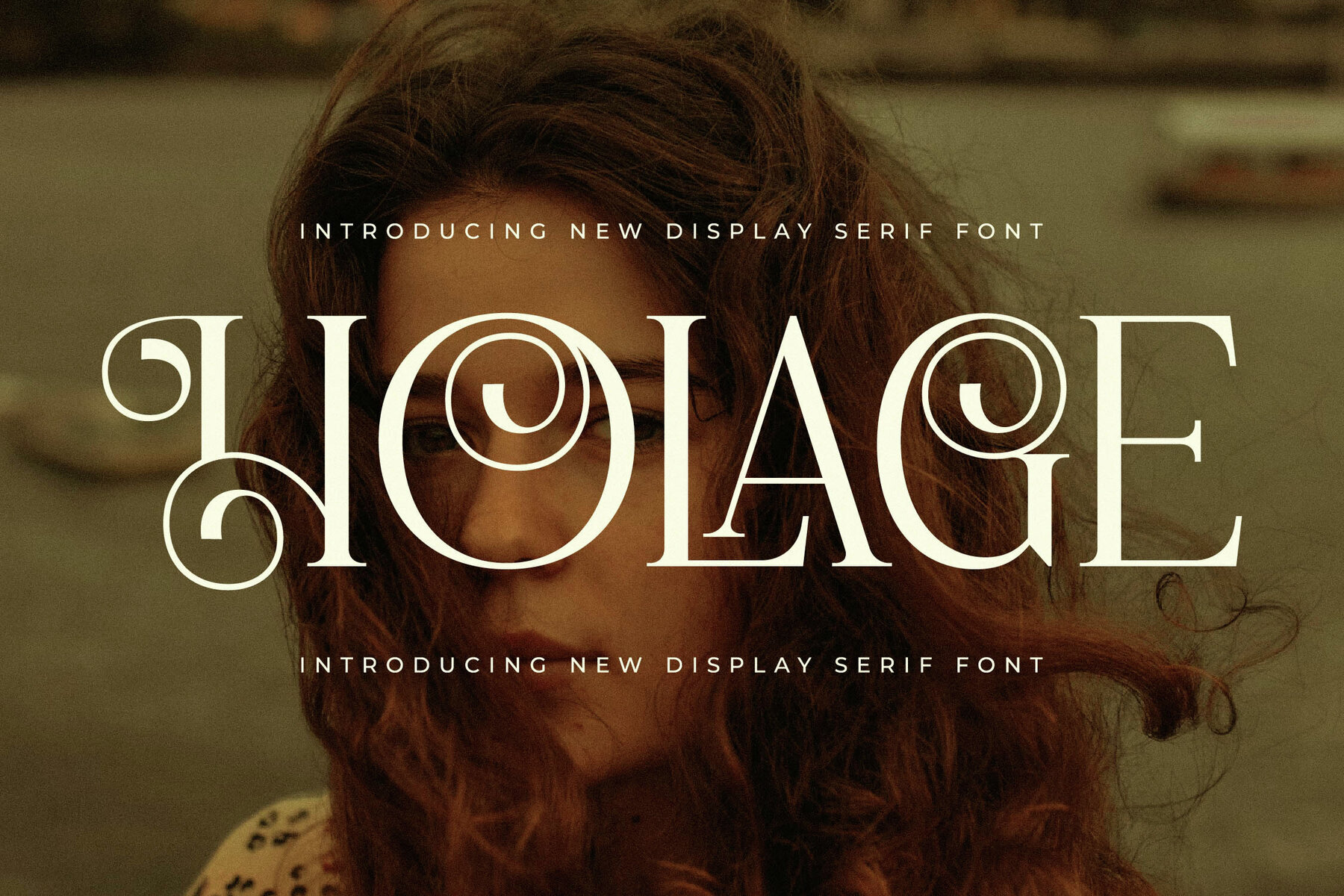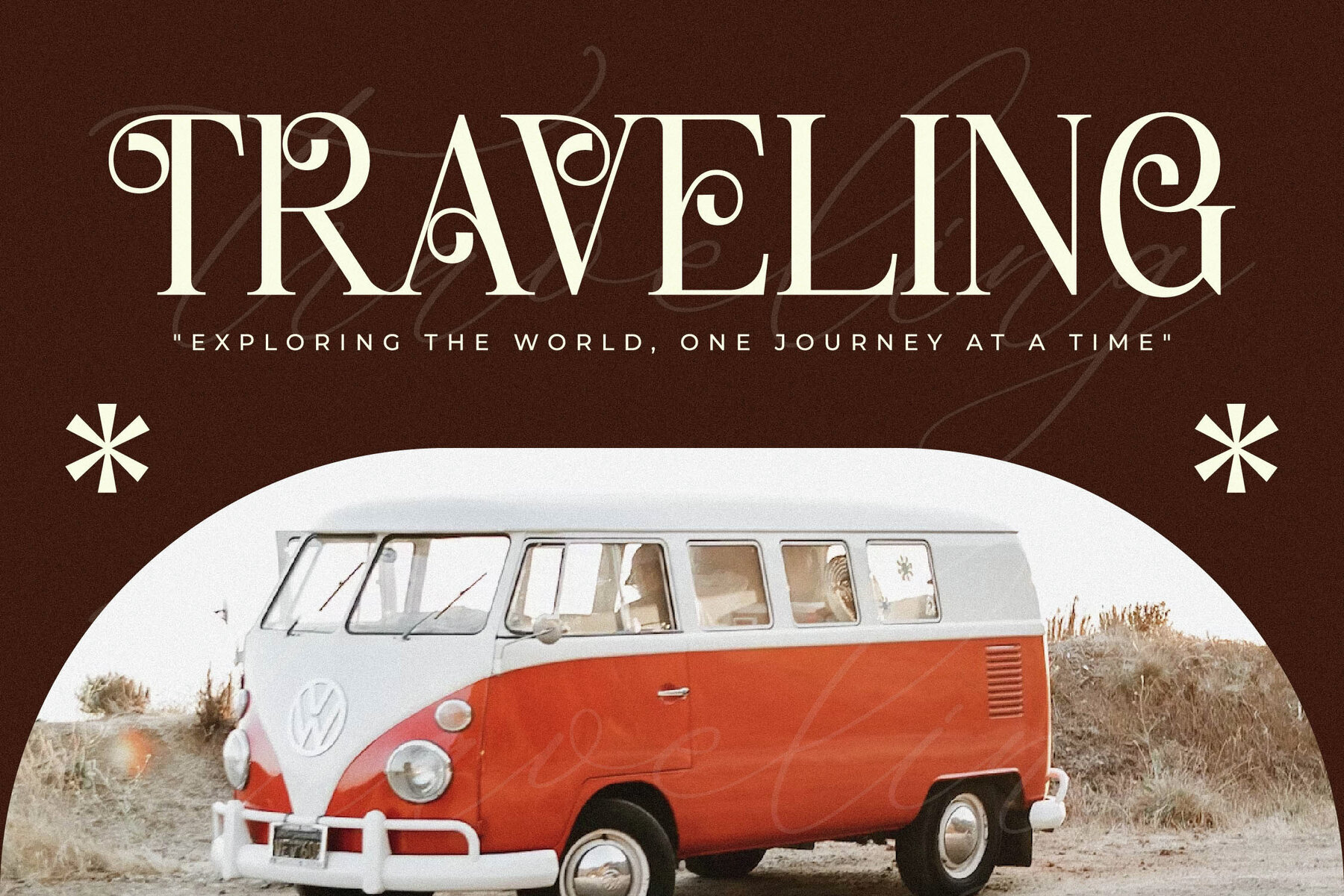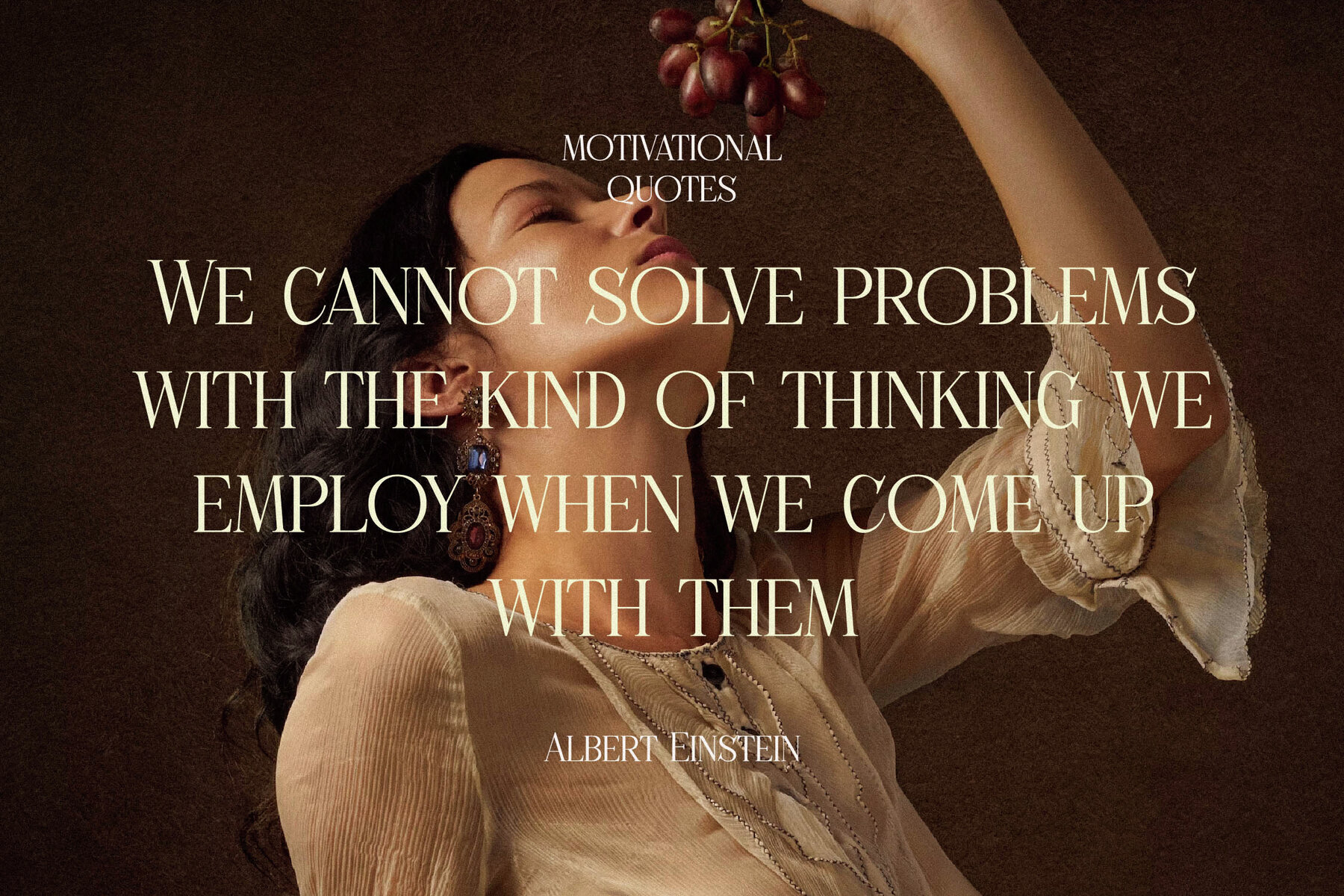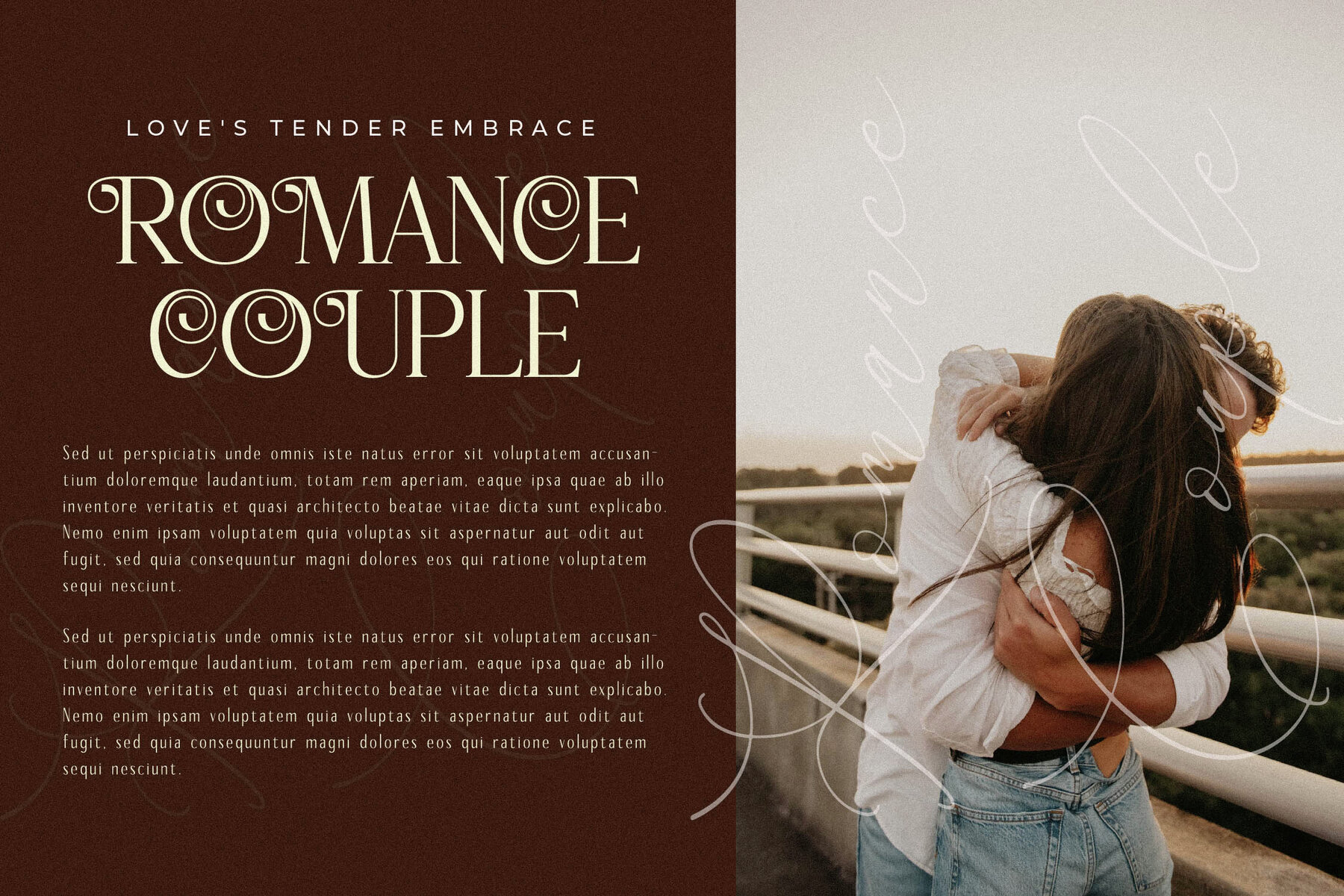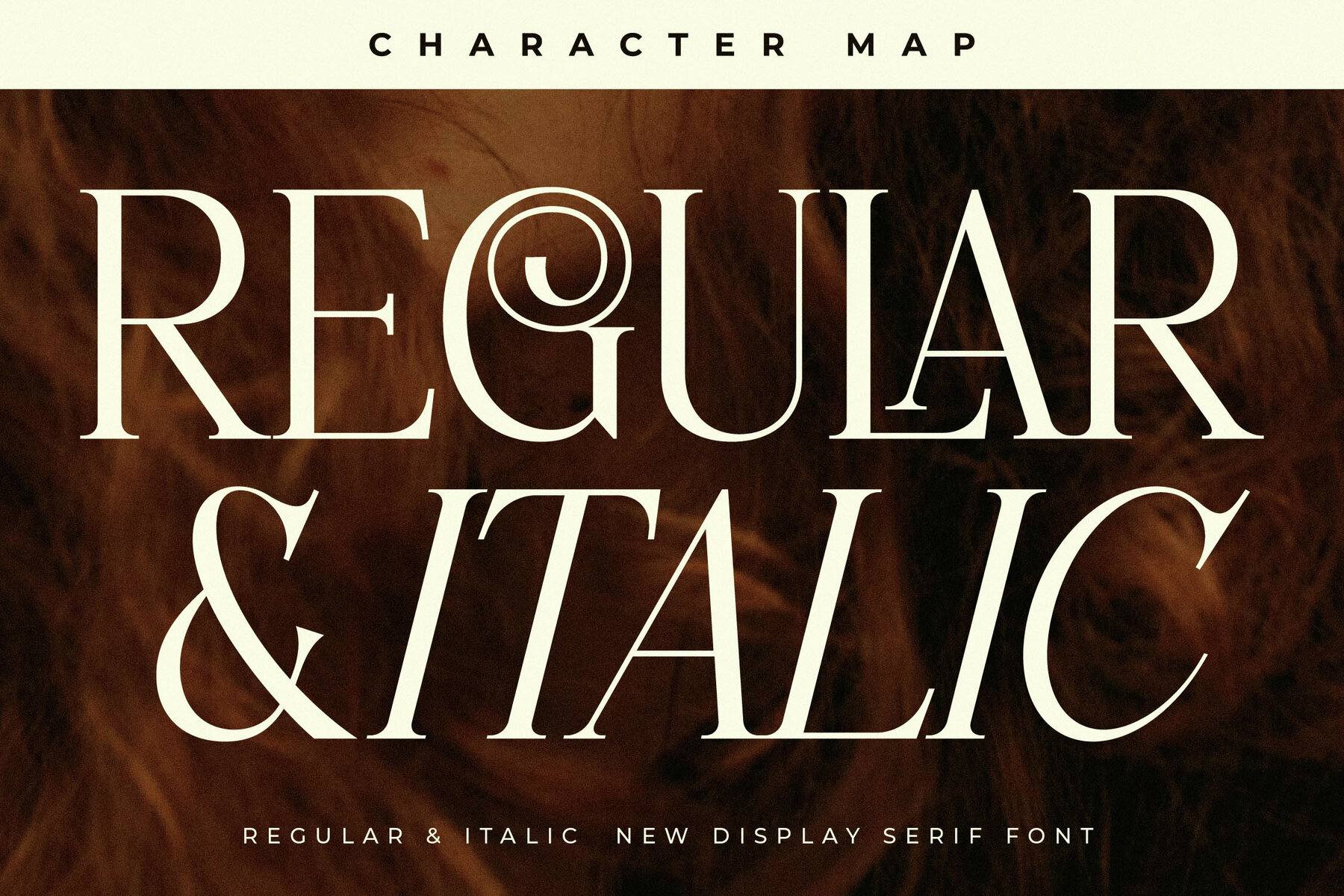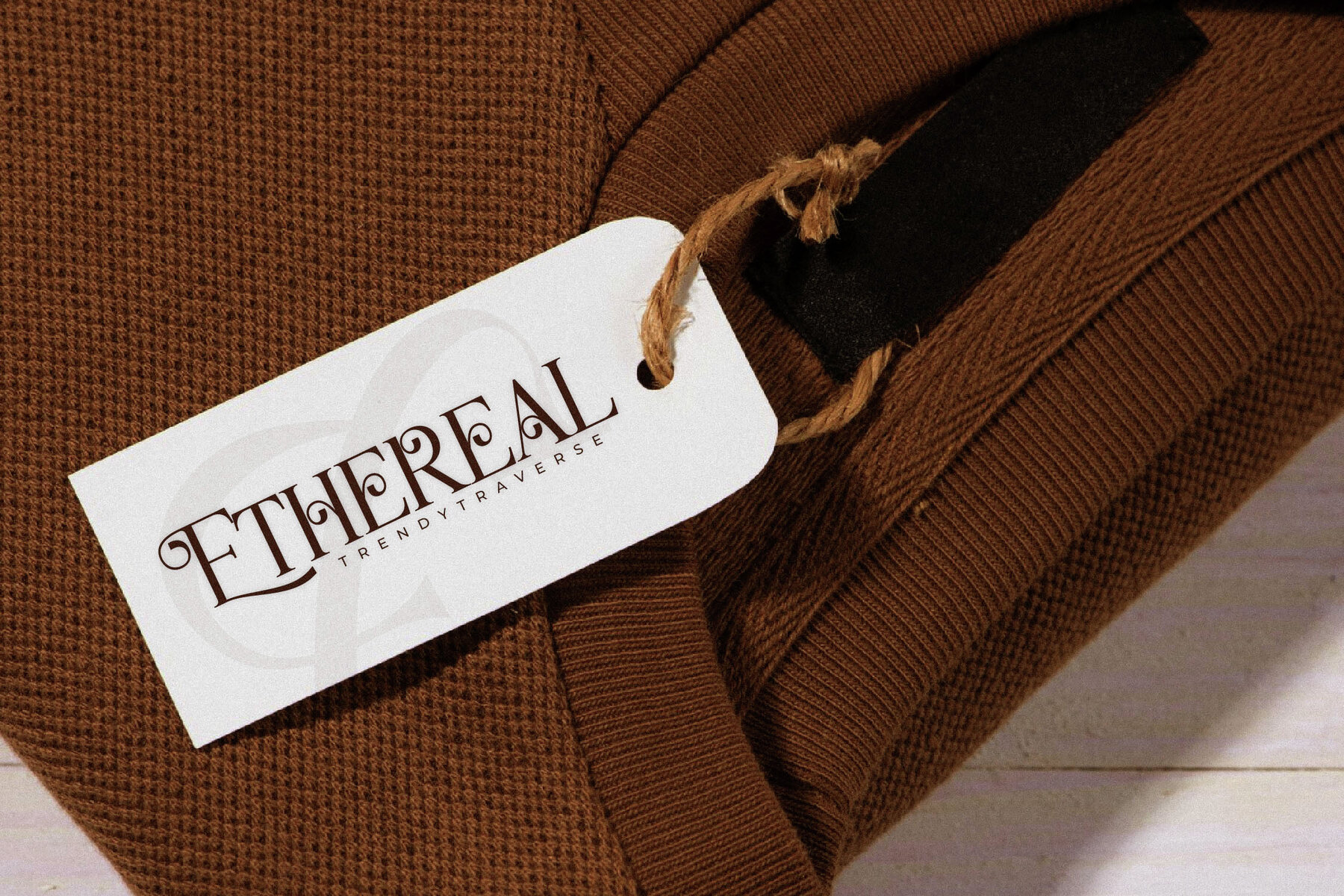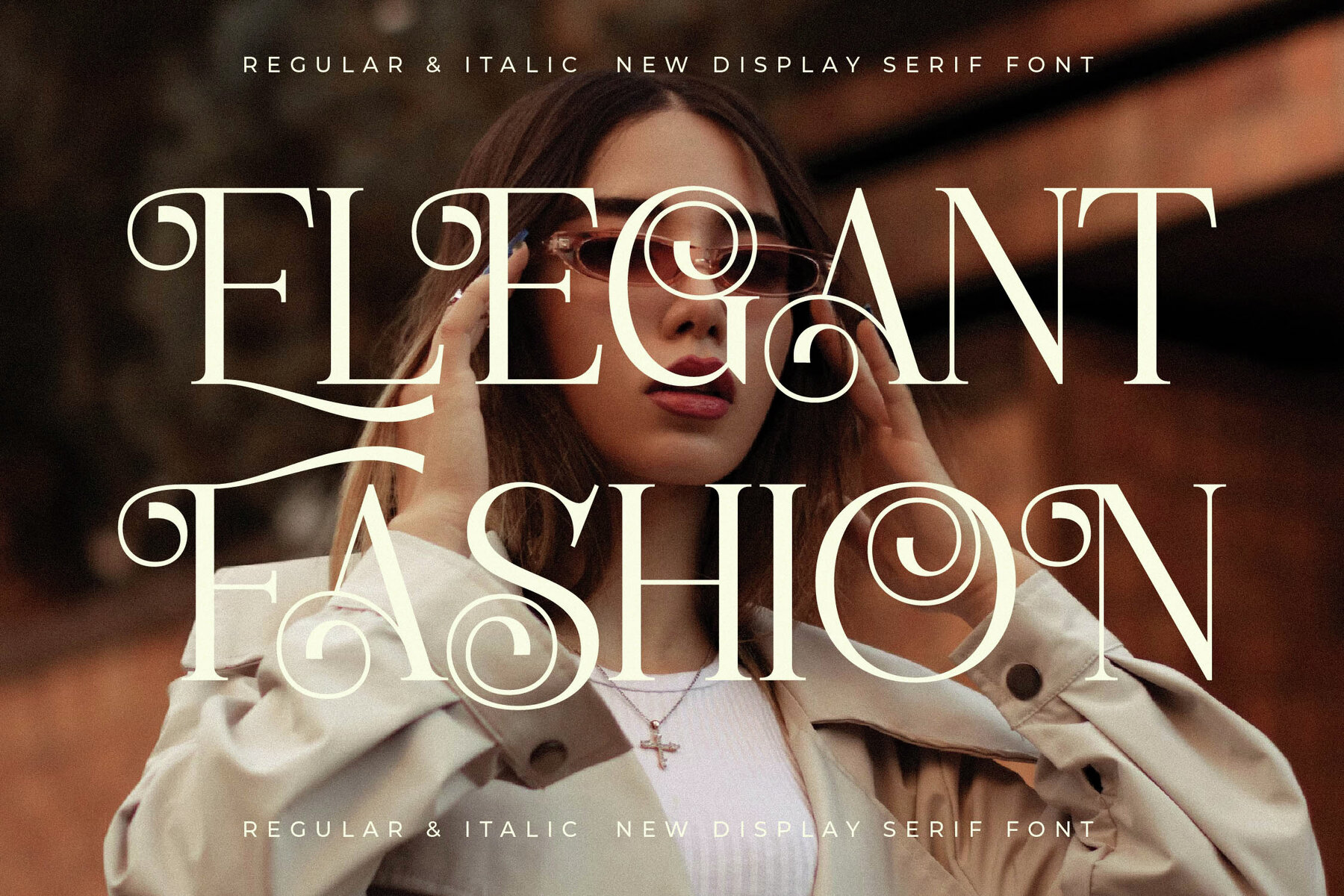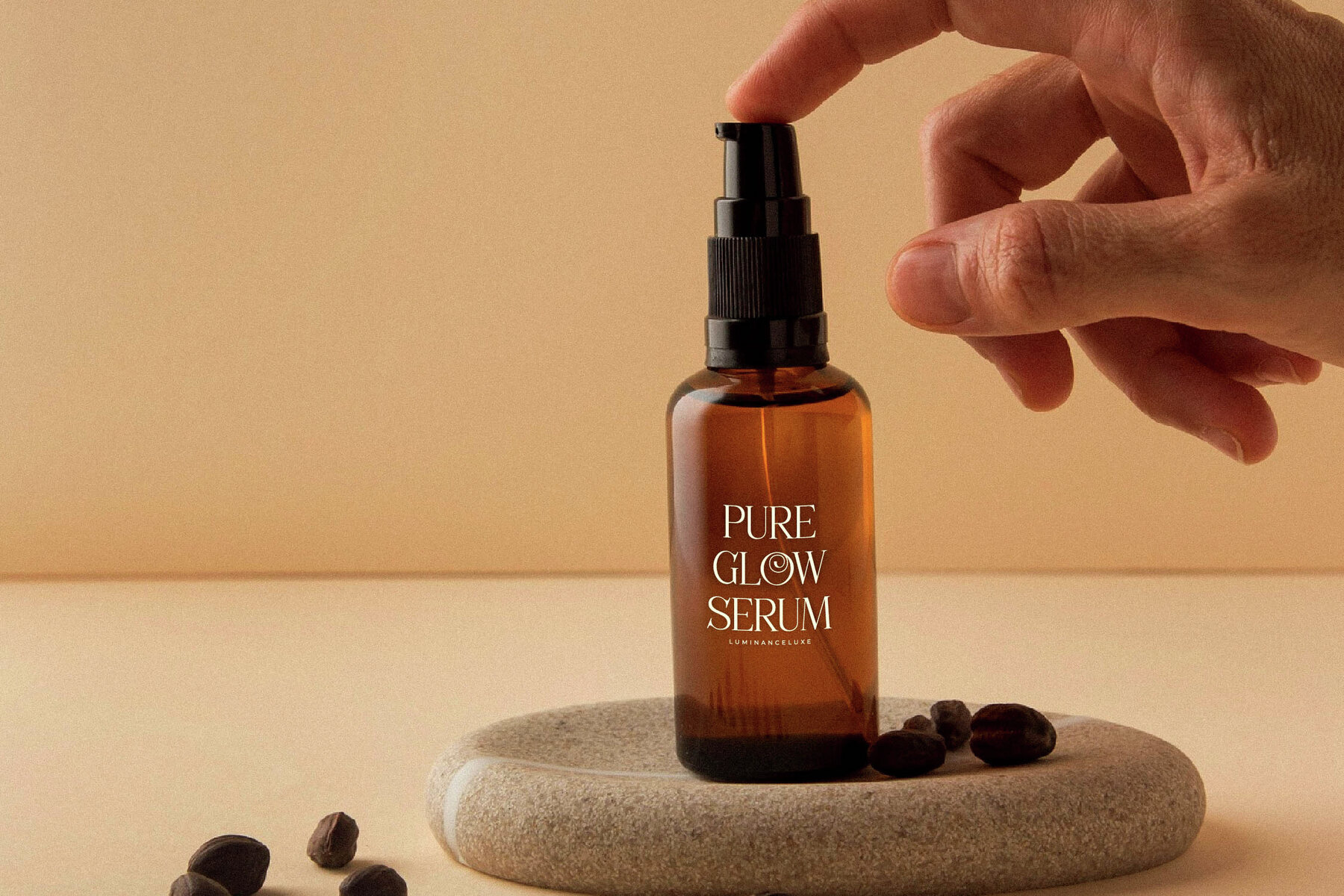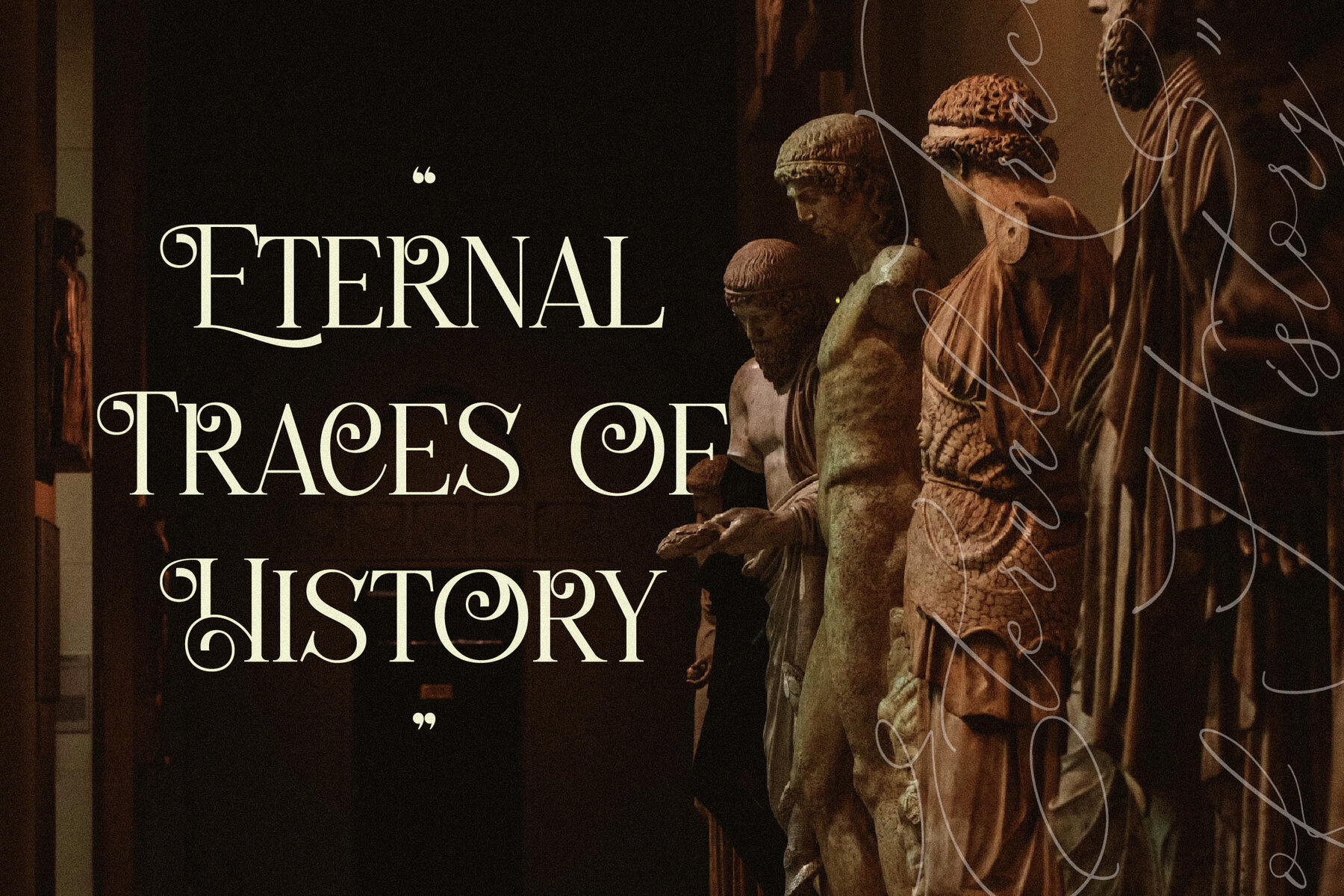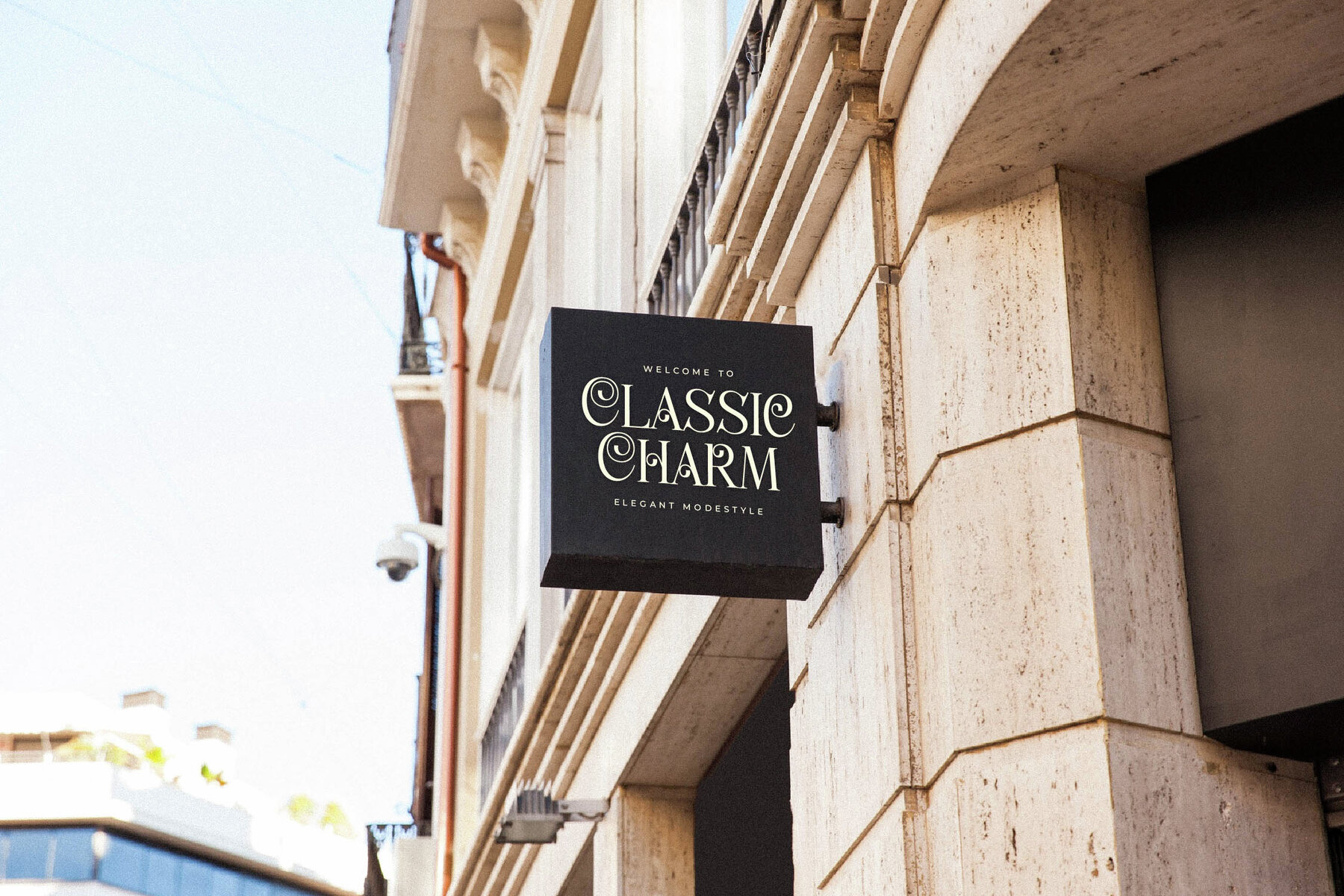
Holage Font
Introducing Holage Typeface, a masterful blend of modernity and classic design by Storytype Studio. This serif typeface, with its distinct style, is the epitome of elegance and sophistication. Ideal for crafting luxurious logos, captivating book or movie titles, and chic fashion brand identities, Holage brings a refined touch to magazines, clothing lines, and timeless quotes.Holage Typeface